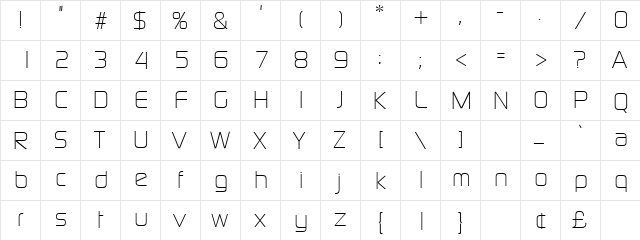
RinehartLight Normal
Design Context for RinehartLight Typeface
RinehartLight offers clean, dependable letterforms without strong stylistic allegiance, making it a practical choice for designers who need flexibility. The delicate stroke weight brings airiness and refinement to layouts.